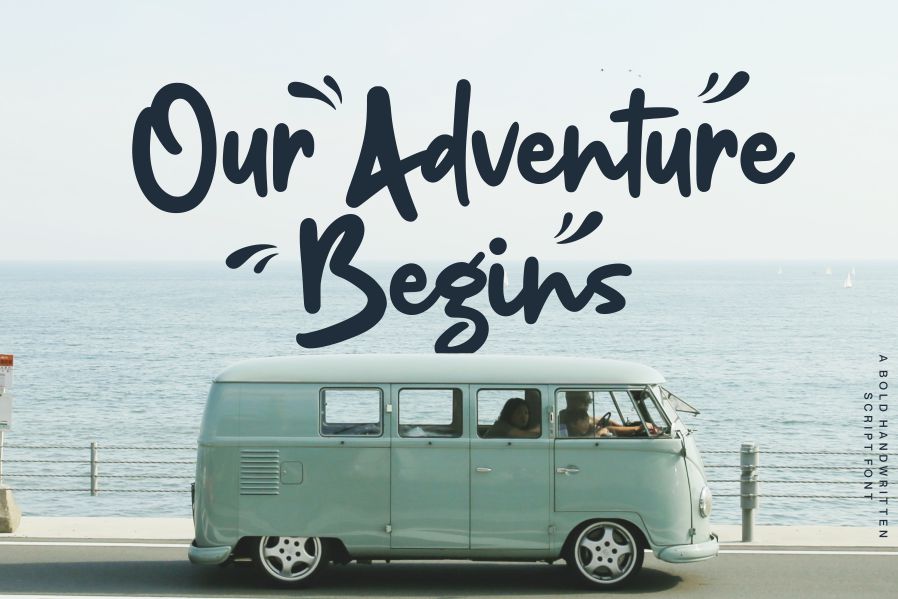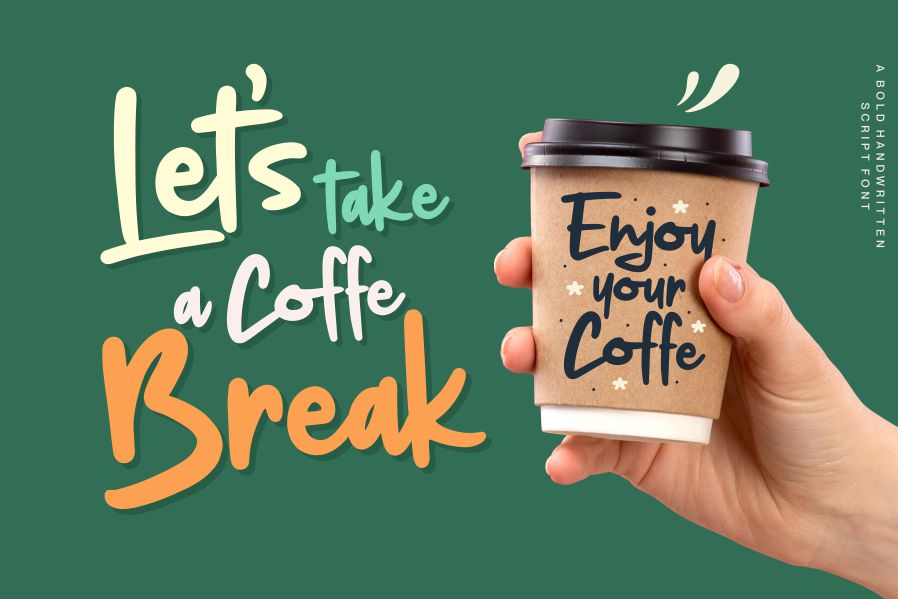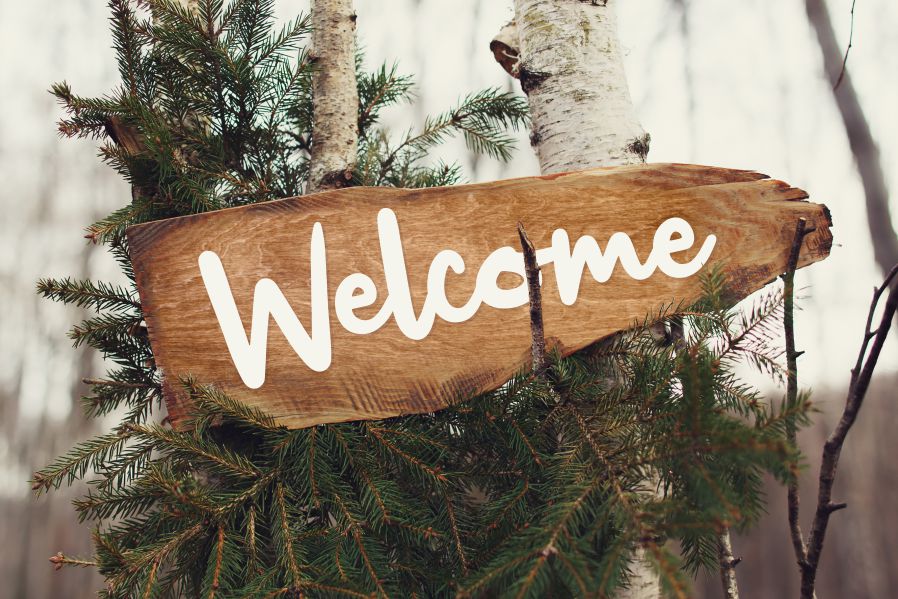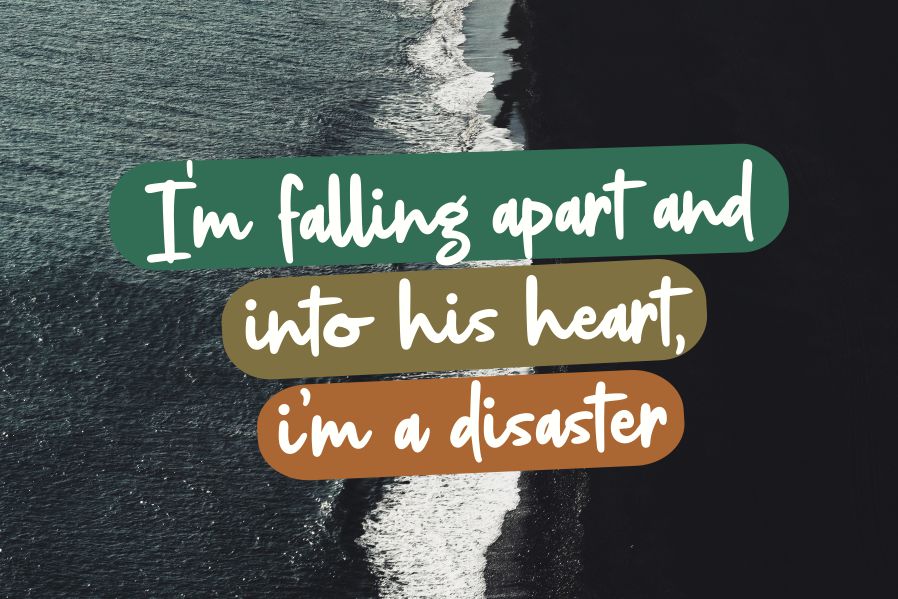
Jungledise Font
Jungledise Script Font
This is a Bold Handwritten Script Font. Jungledise is perfect for product packaging, branding project, megazine, social media, wedding, or just used to express words above the background.